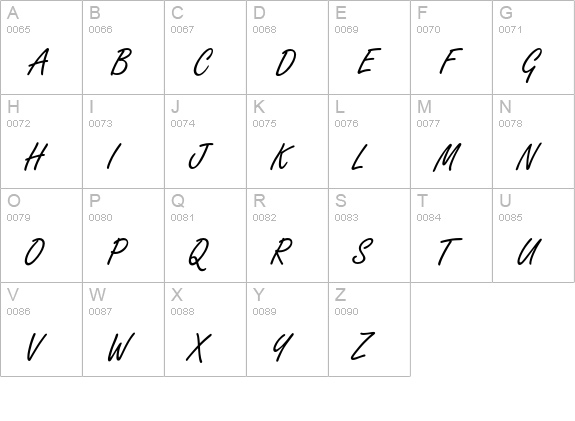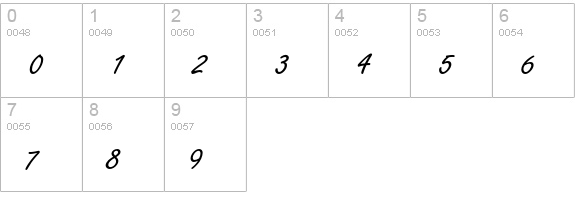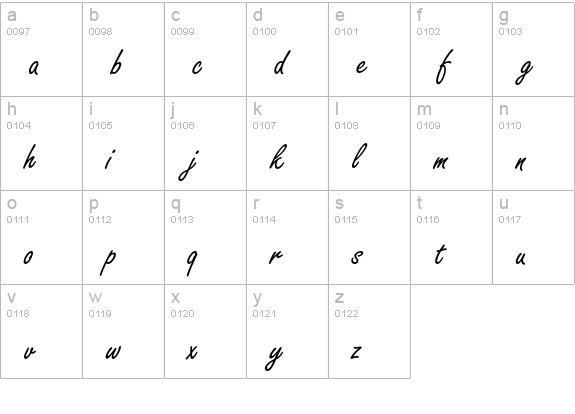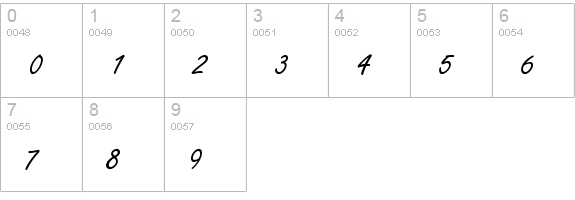
FreestyleScriptEF-Reg Font Details
FreestyleScriptEF-Reg font is a charming and elegant script typeface designed to bring a touch of sophistication to your projects. With its flowing lines and graceful curves, this font exudes a sense of creativity and style. Perfect for adding a personal and artistic flair to any design, FreestyleScriptEF-Reg is versatile and suitable for a wide range of applications. The best part is that FreestyleScriptEF-Reg font is completely free to download at FontsMarket.com! Whether you're working on a branding project, invitation, or any other creative endeavor, this font will elevate your work with its unique charm and timeless appeal. Don't miss out on the opportunity to enhance your designs with this beautiful and freely available font.